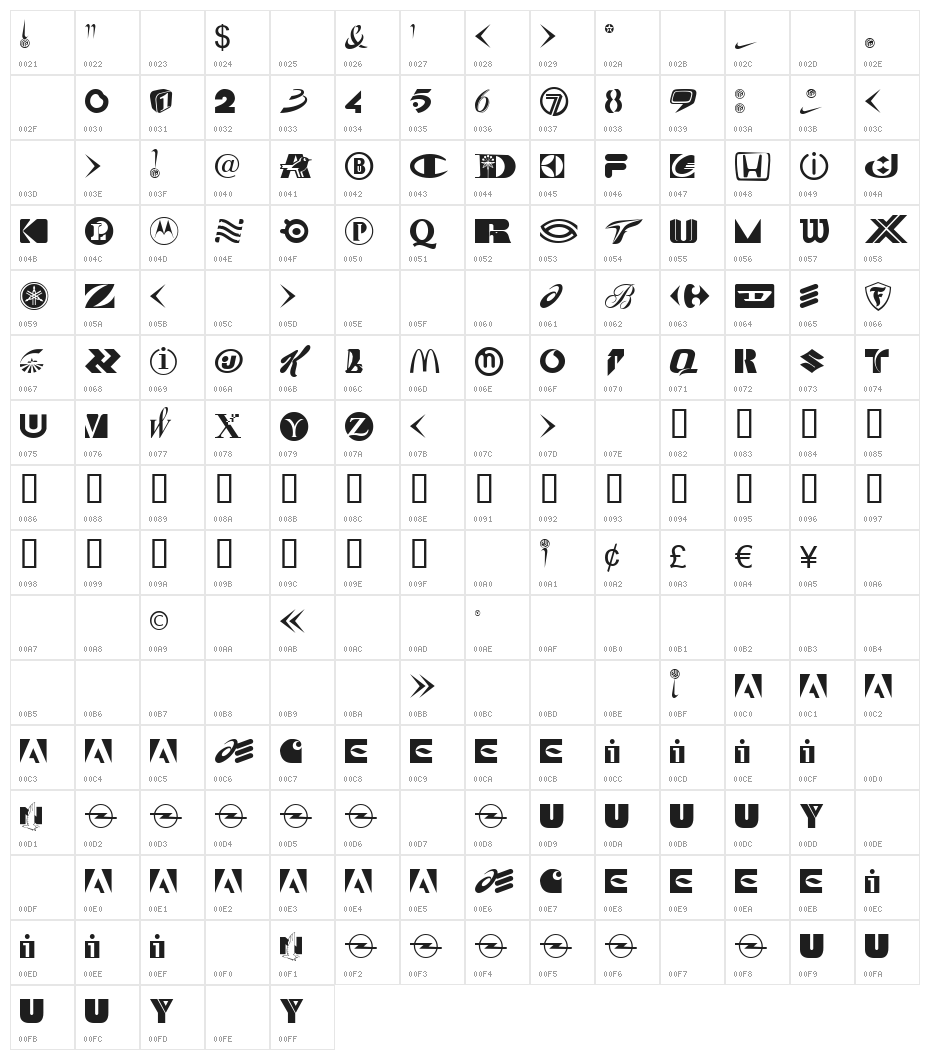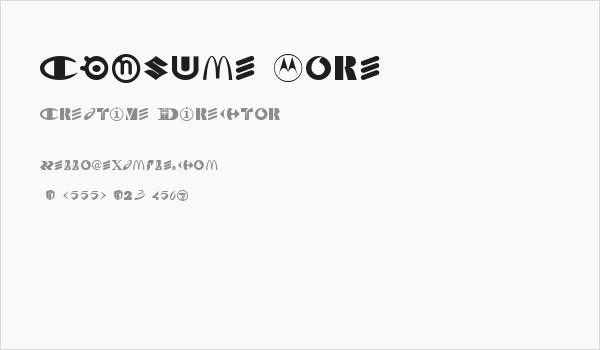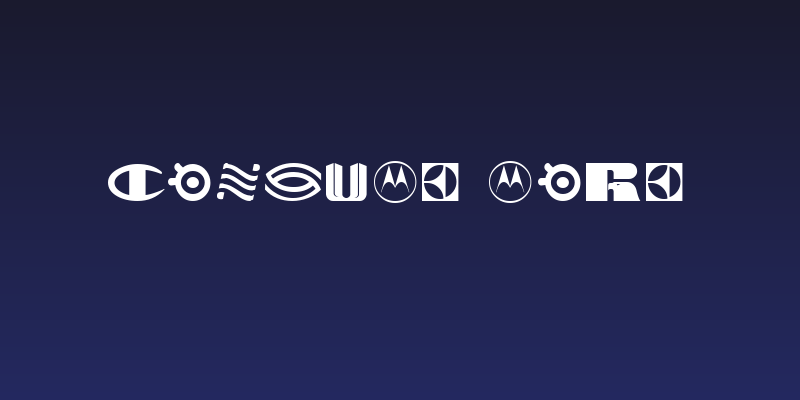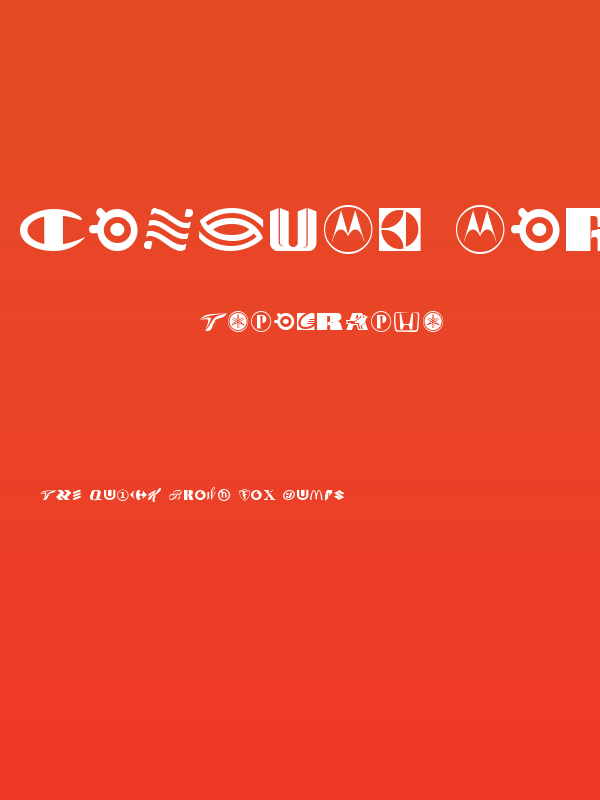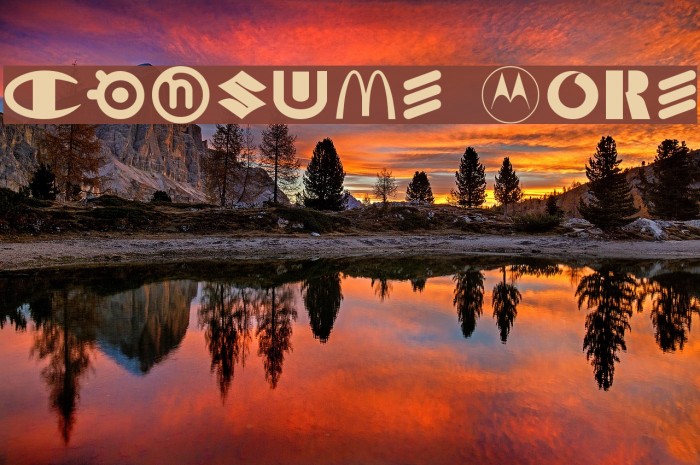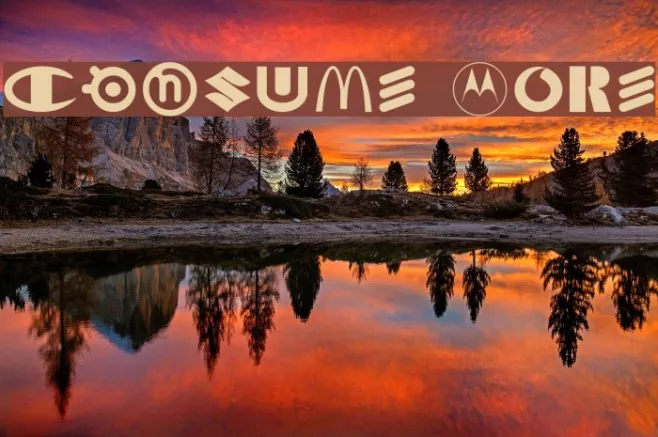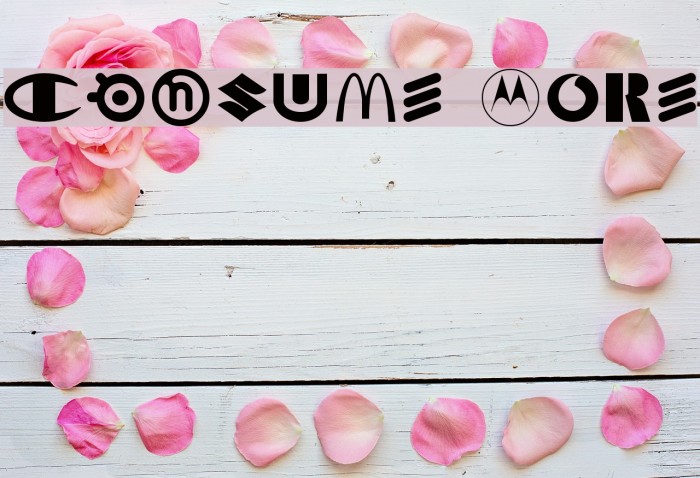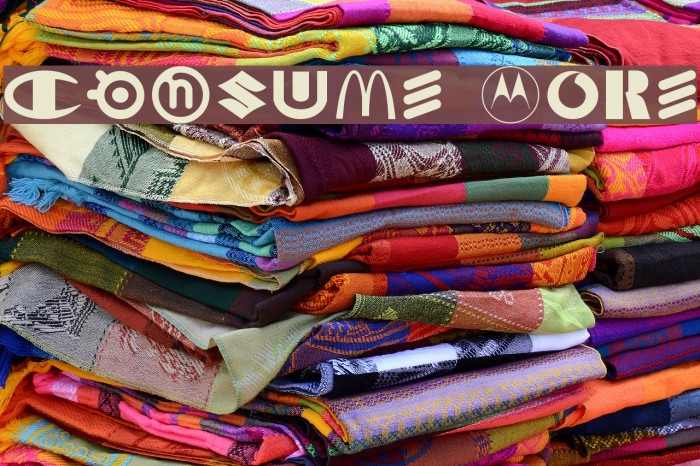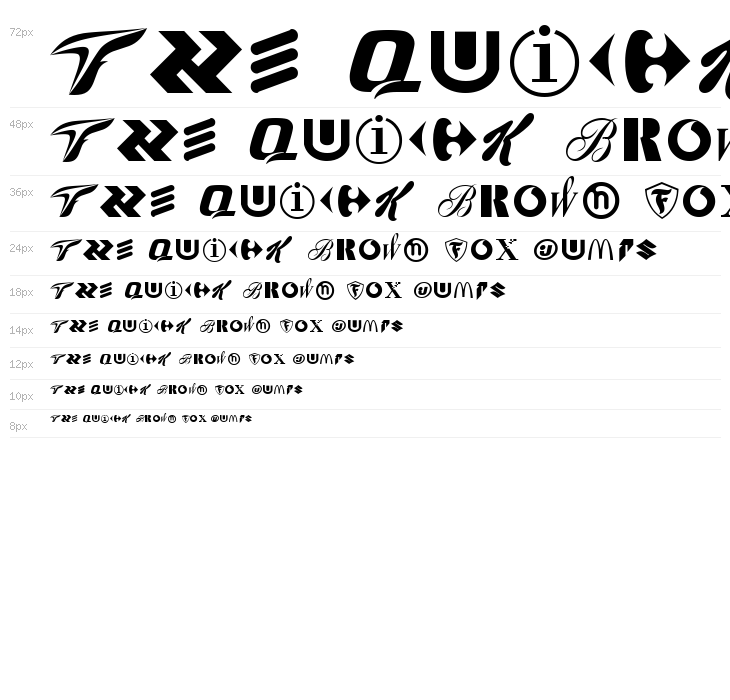
COnsume More Font
COnsume More Description
This font is a highly decorative and eclectic collection of characters, each uniquely styled with various design elements and motifs. The uppercase letters incorporate a mix of geometric shapes, abstract forms, and iconic symbols, creating a visually striking and diverse set. The lowercase letters continue this theme with intricate details and creative flair. The numerals are bold and distinct, each with its own unique design twist. Special characters are equally varied, featuring playful and imaginative interpretations. This font is ideal for projects that require a bold and artistic touch, offering a wide range of visual interest and creativity.